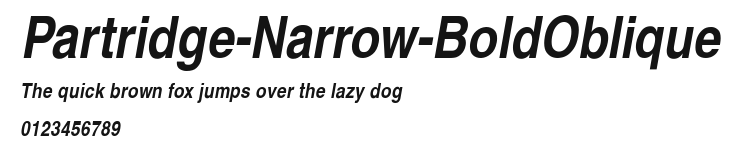
Partridge-Narrow-BoldOblique Preview
About Partridge-Narrow-BoldOblique.ttf
Partridge-Narrow-BoldOblique.ttf is a modern, elegant sans-serif font designed for ultimate readability and visual harmony. Perfect for branding, headlines, web design, and print materials.